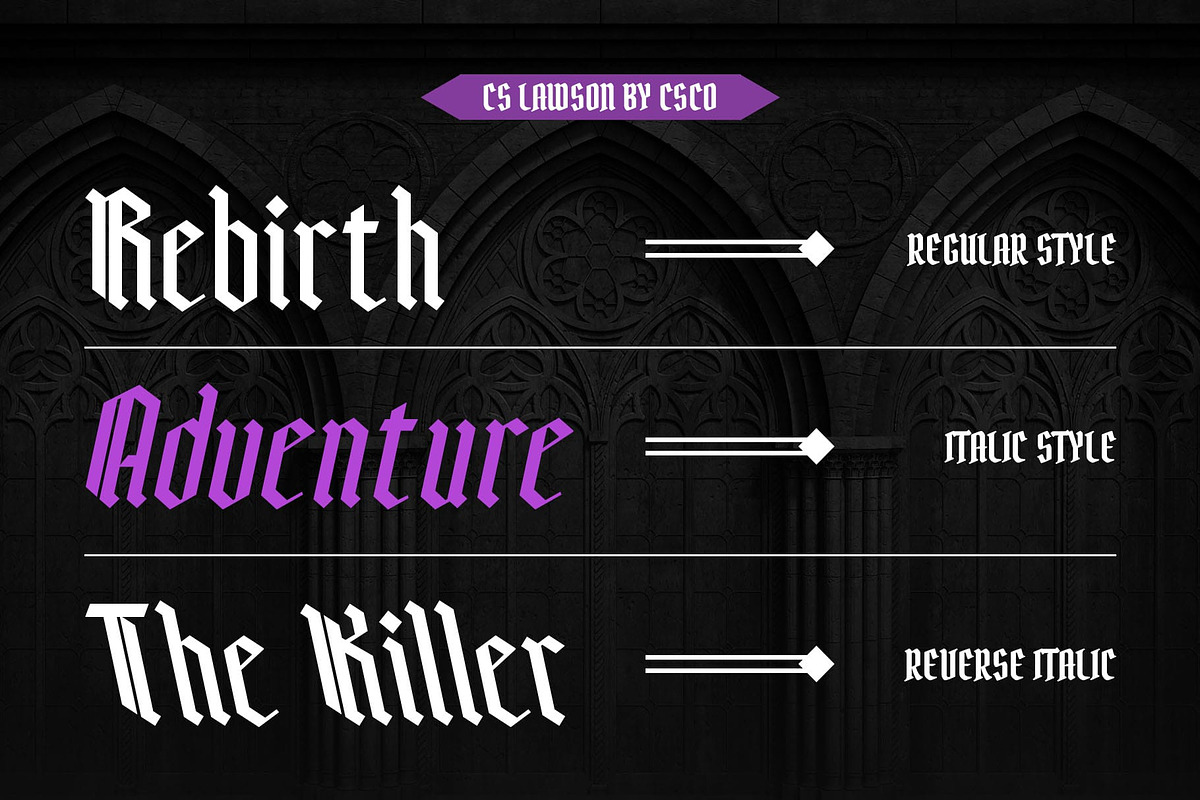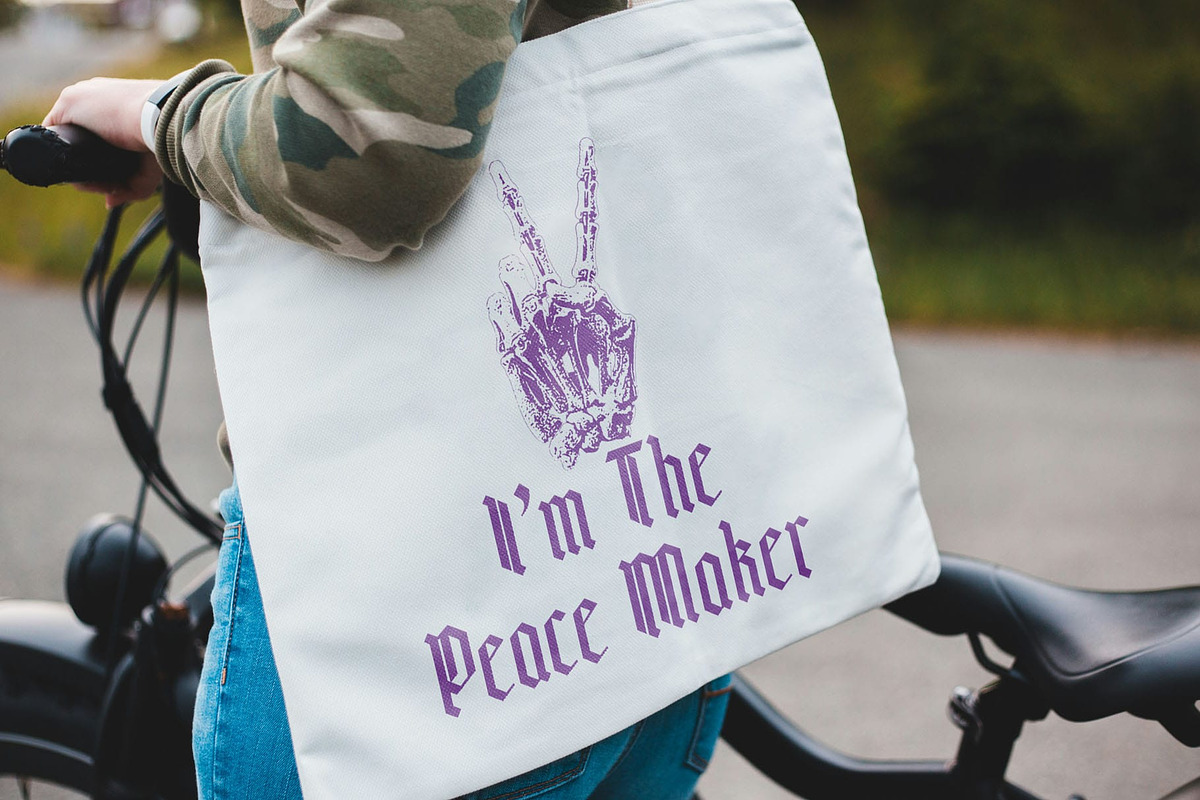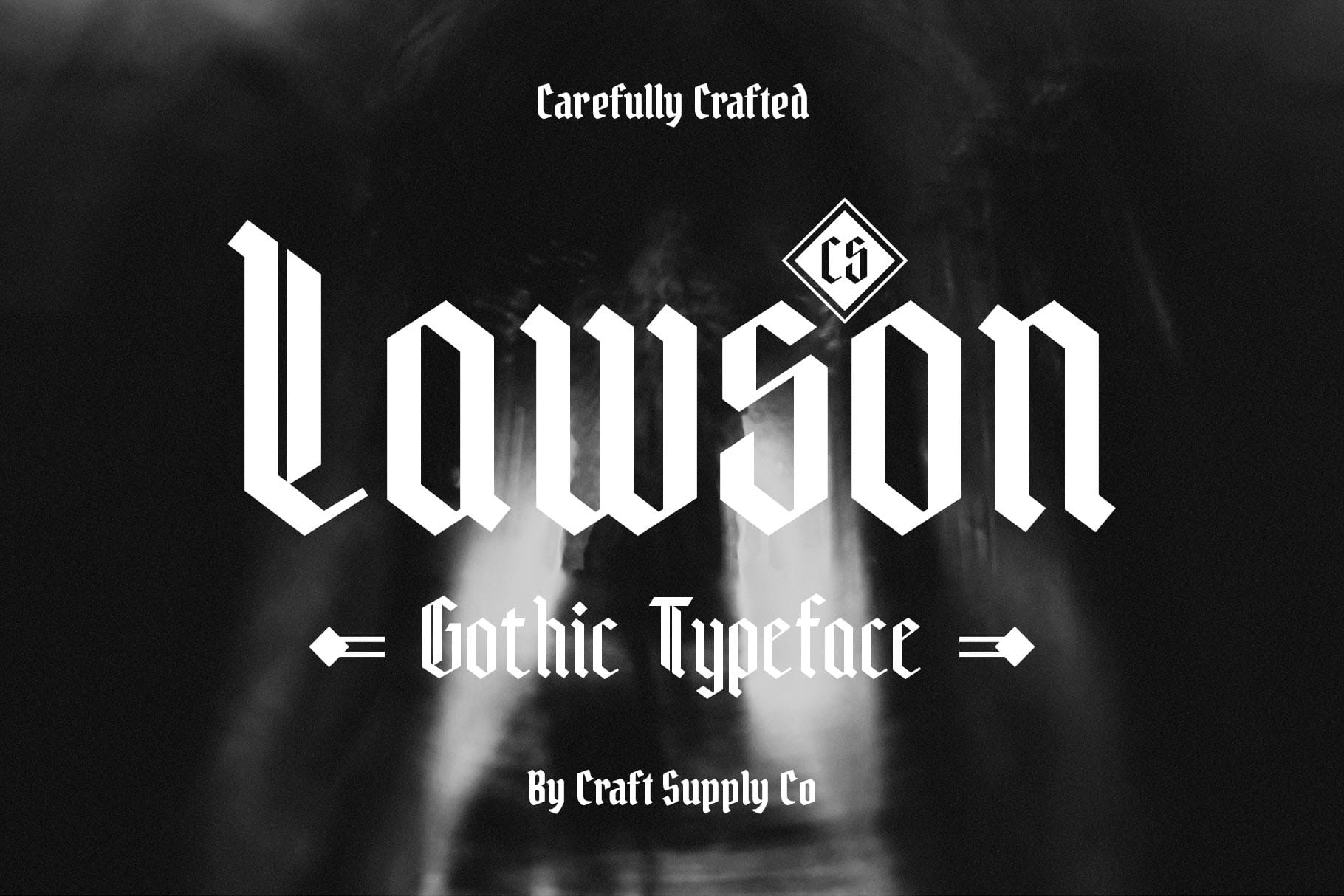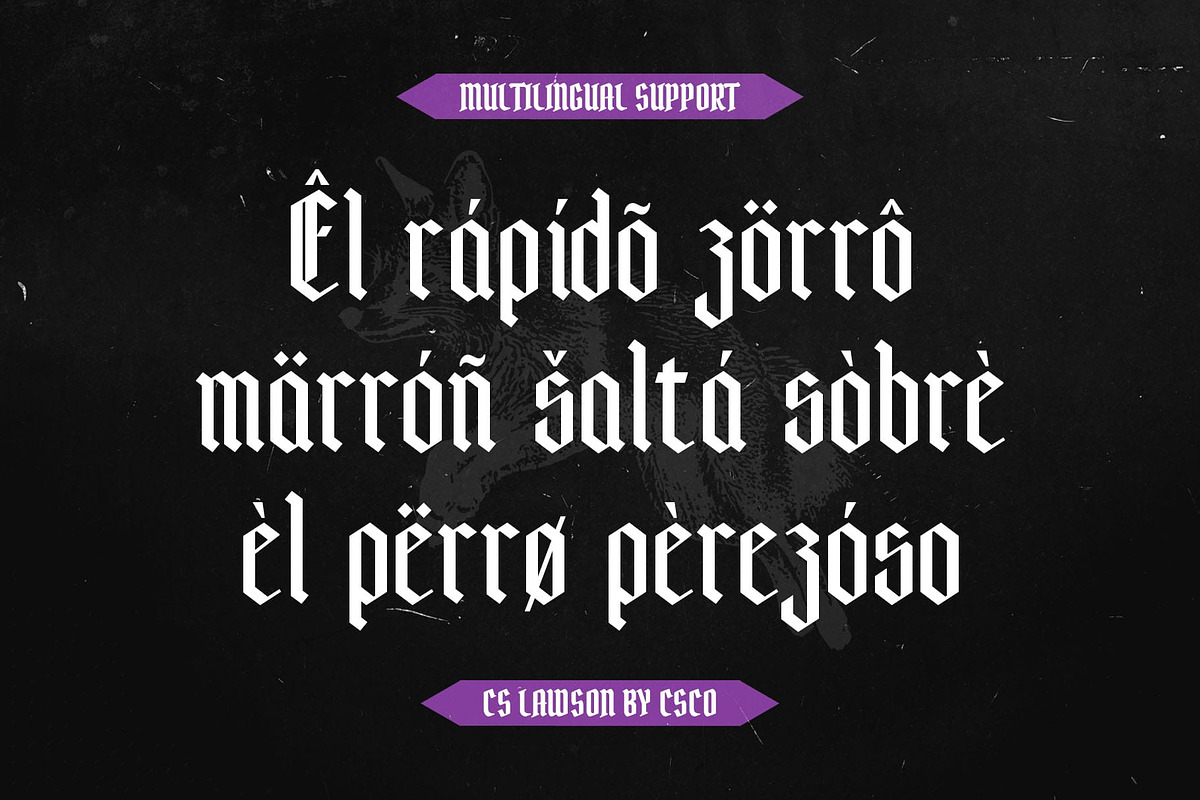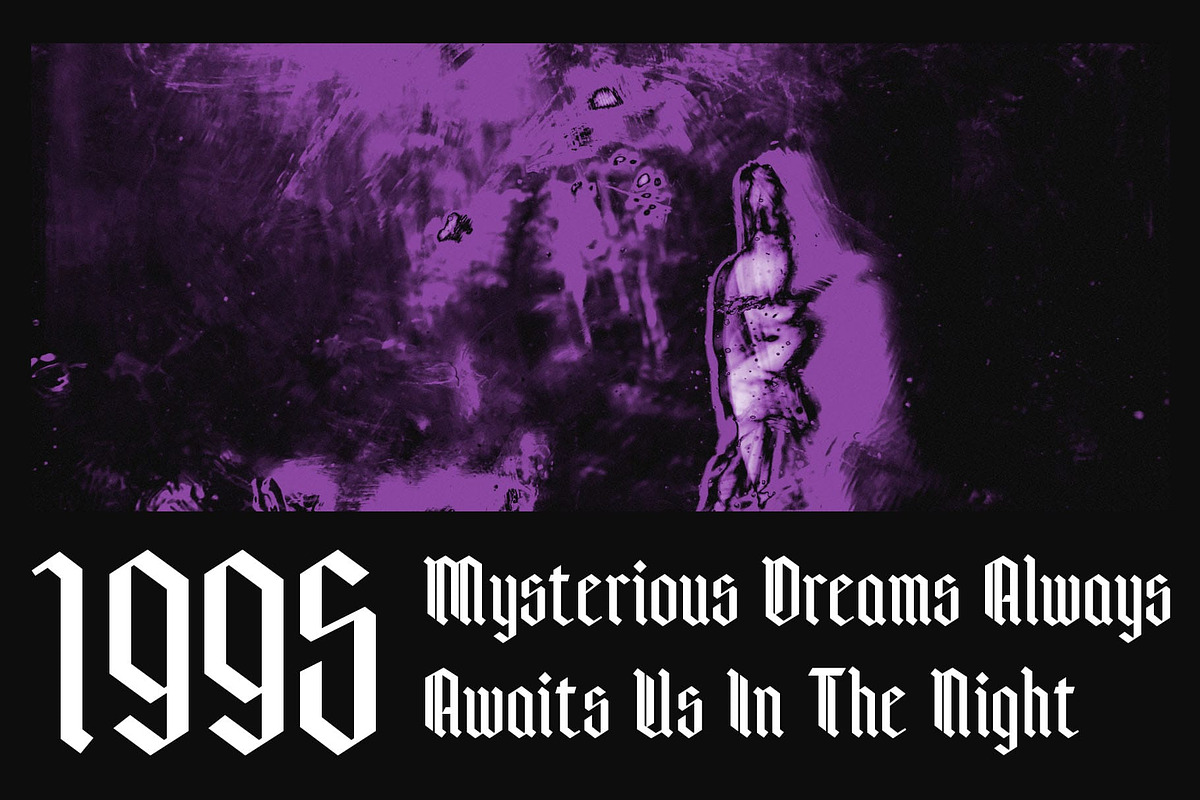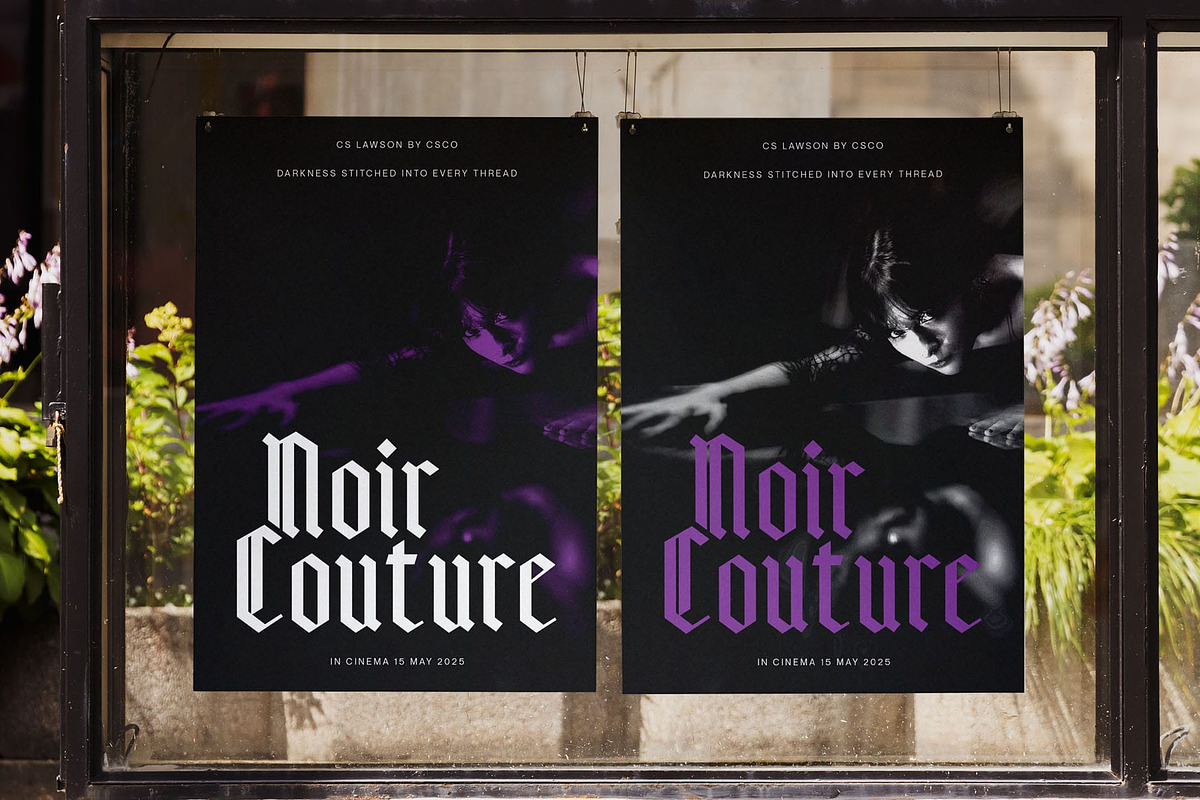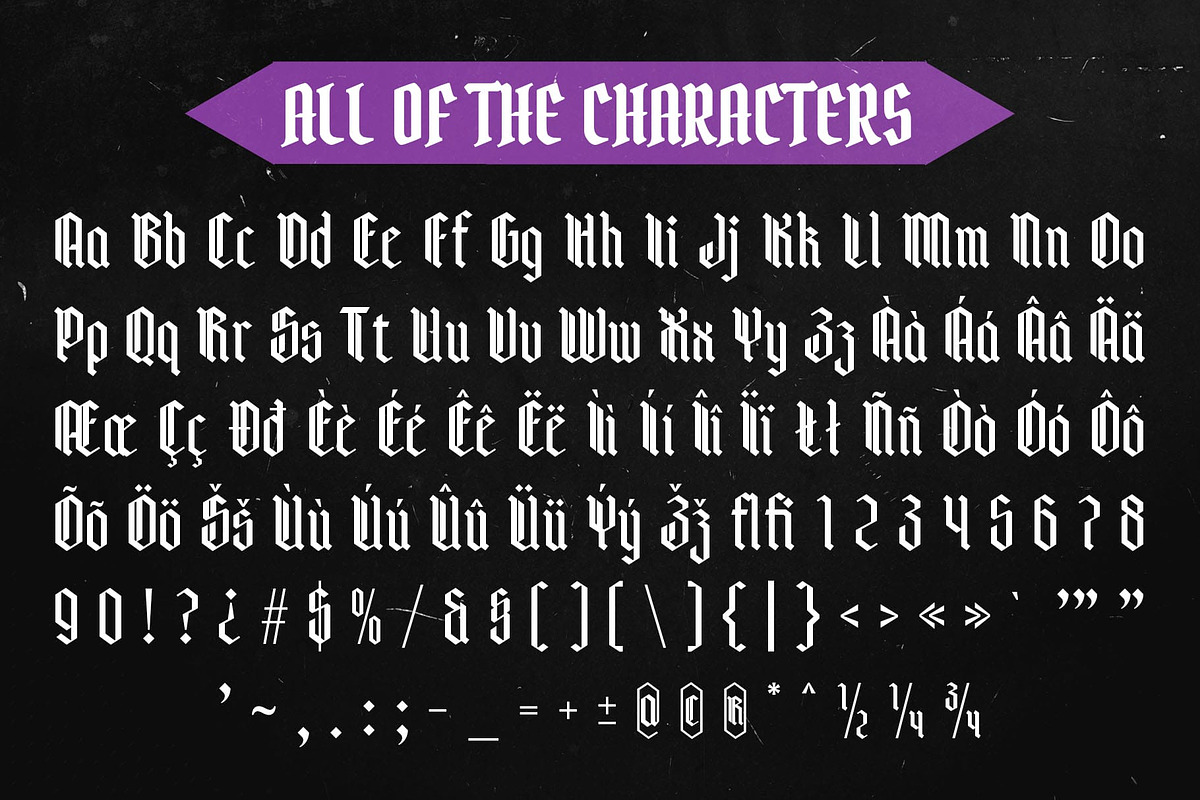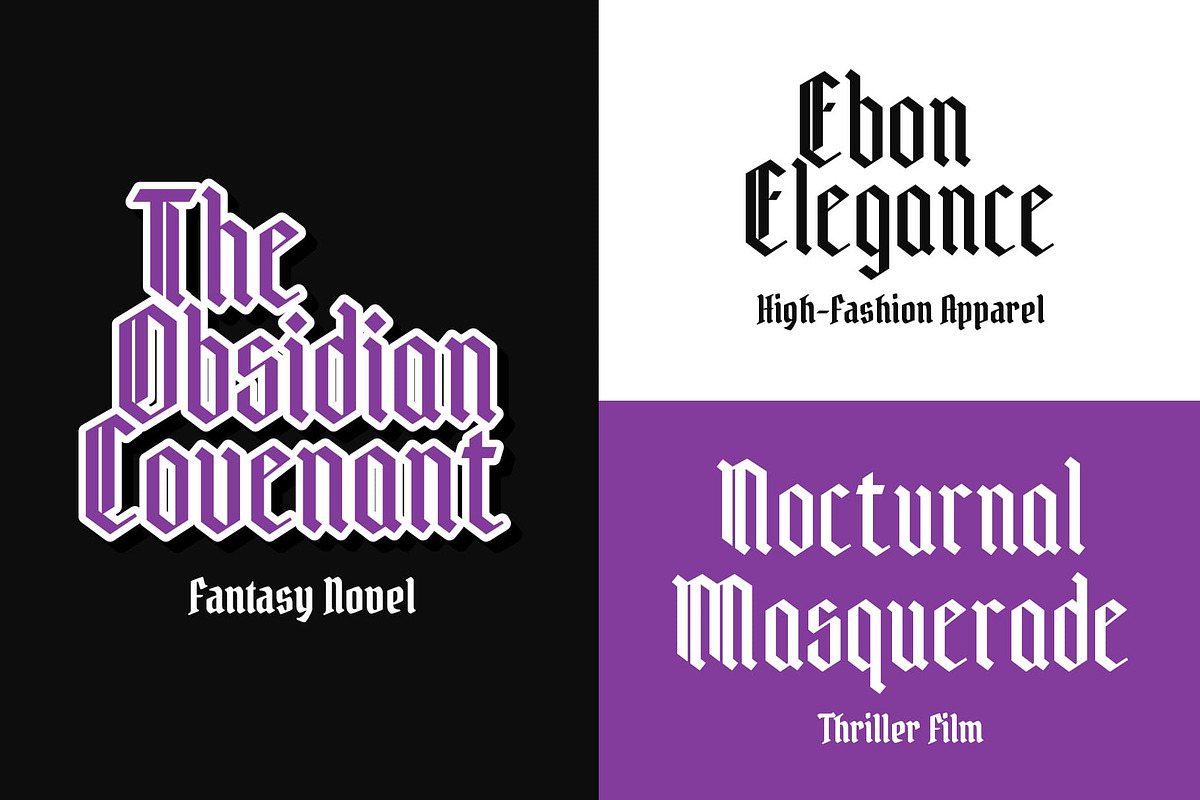
CS Lawson – Gothic Font
CS Lawson – Gothic Font: A Bold Fusion of Tradition and Modernity
Modern Gothic Display Font CS Lawson is a modern Gothic display font that blends the timeless elegance of traditional Gothic typography with contemporary design elements. Featuring sharp, angular letterforms, bold lines, and clean details, this font creates a striking balance between historic grandeur and modern sophistication. The sharpness and strong visual presence of its letterforms evoke strength, formality, and drama, making it an ideal choice for a wide range of design projects.
Bold and Dramatic Appeal The bold structure of CS Lawson allows it to make a strong statement in any design. Whether used in large headlines or eye-catching logos, its dramatic shapes ensure that your message stands out. The modern Gothic style, with its clean yet edgy aesthetic, captures attention without compromising on readability, making it an ideal choice for designs that aim to convey both elegance and strength.
Versatile for Branding, Posters, and Editorials CS Lawson is the perfect choice for projects requiring a strong visual impact and a sense of formality. Whether used for branding, promotional posters, editorial designs, or even album covers, the font’s dramatic flair ensures it makes a memorable impression. Its professional yet captivating design allows it to work seamlessly across a range of industries, from high-end fashion to modern Gothic themes.
- CS Lawson Regular
- CS Lawson Italic
- CS Lawson Reverse Italic